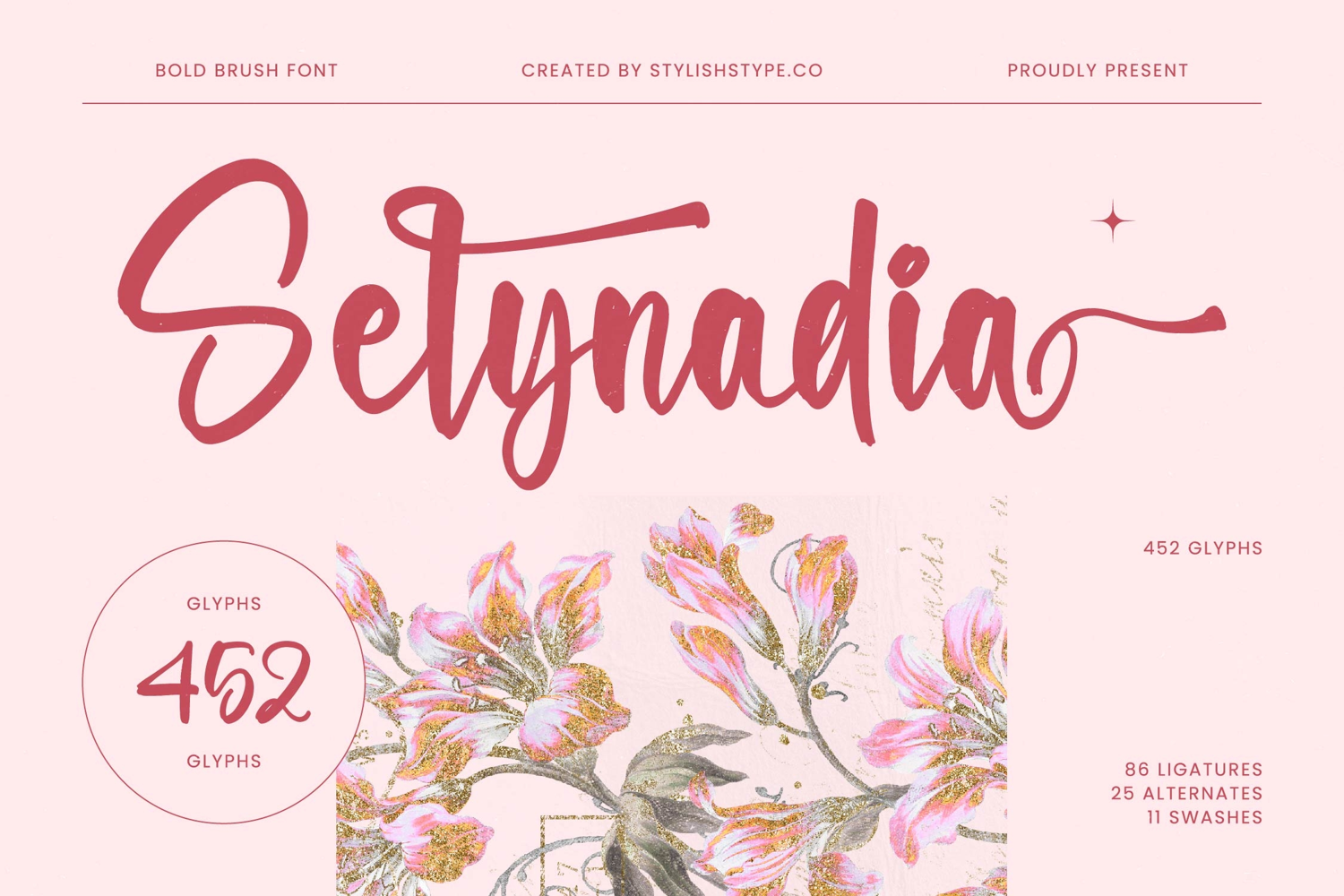
Selynadia - Bold Brush Font
Selynadia Italic
Selynadia
Selynadia - Bold Brush Font
Experience unparalleled design flexibility and global reach. With an impressive collection of 452 glyphs, including 86 ligatures, 25 alternates, and 11 swashes, Font Selynadia - Bold Brush Font Script offers extensive customization for truly unique headlines and messaging. With its extensive multilingual support, Font Selynadia - Bold Brush Font Script adapts seamlessly across global markets, making it incredibly versatile for international projects and diverse audiences.
Perfectly suited for projects demanding sophistication and genuine appeal. Font Selynadia - Bold Brush Font Script excels in applications like luxury branding, sophisticated packaging design, compelling editorial layouts, and memorable event invitations. It’s the go-to script for apparel design, impactful logotypes, and engaging social media graphics, where its distinctive style effortlessly conveys a premium aesthetic and an undeniable sense of character.
Invest in a typeface that elevates your brand’s voice. Beyond its aesthetic charm, Font Selynadia - Bold Brush Font Script is a strategic asset for designers aiming to create high-impact visuals that resonate deeply. Its authentic hand-drawn quality ensures every design feels bespoke and considered, offering a timeless appeal that stands out in a crowded market. Empower your creative endeavors with this truly remarkable and versatile script.